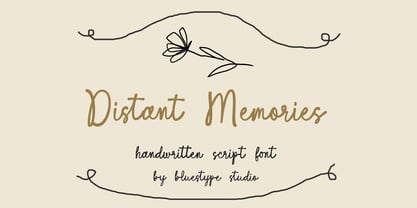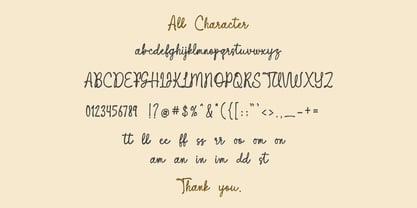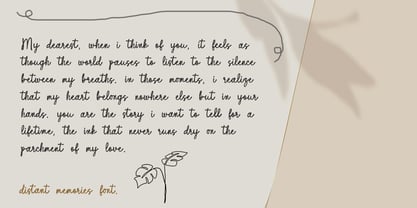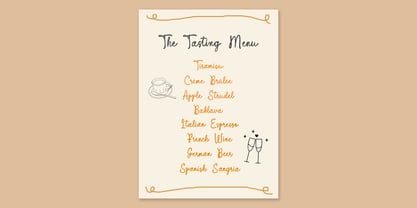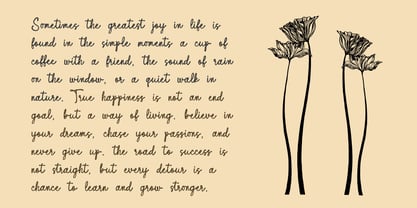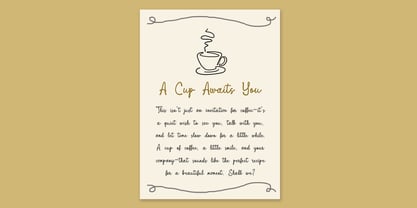
Distant Memories
by Bluestype Studio
The Distant Memories Font Family was designed by Jefri Dwi Alfatah and published by Bluestype Studio. Distant Memories contains 1 styles. More about this family
Distant Memories is a beautifully crafted handwritten script font designed to bring elegance, warmth, and personality into your creative projects. With its flowing curves and natural strokes, this font captures the charm of authentic handwriting while keeping an aesthetic and modern appeal. Whether you are creating logos, wedding invitations, branding projects, social media posts, or product packaging, Distant Memories will elevate your typography with a touch of handwritten grace. Its versatility makes it ideal for both digital and print use, giving your design a professional yet heartfelt finish.